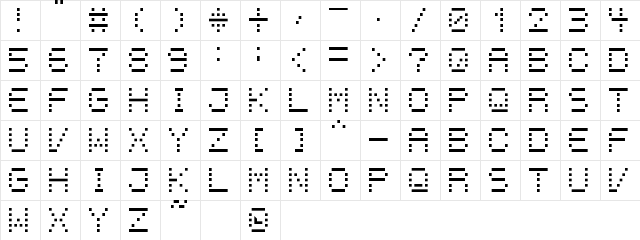
9pxbus Regular Free Font
9pxbus Regular
Design Context for 9pxbus
9pxbus is a composed and adaptable typeface that performs quietly and consistently across a wide range of design contexts.